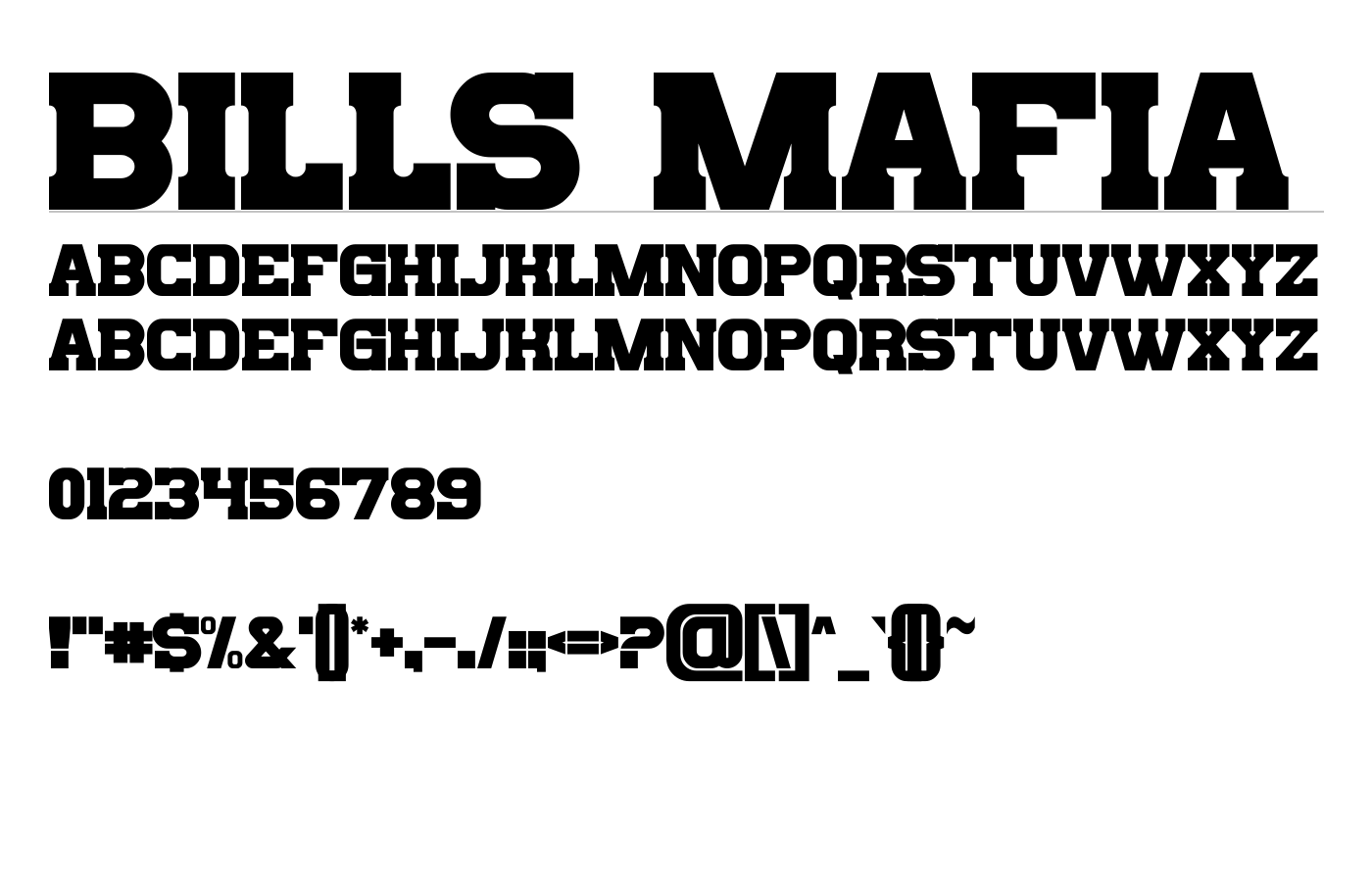
Bills Mafia Font is a bold, slab serif typeface with a strong, blocky presence that exudes confidence and ruggedness. Its heavy weight, high contrast between thick and thin strokes, and sturdy, bracketed serifs give it a vintage yet powerful feel, making it ideal for impactful headlines, sports branding, and any design that needs to convey strength and bold character. This font works best in logos, posters, and editorial uses where attention-grabbing, classic Americana style is desired.
Bills Mafia Font